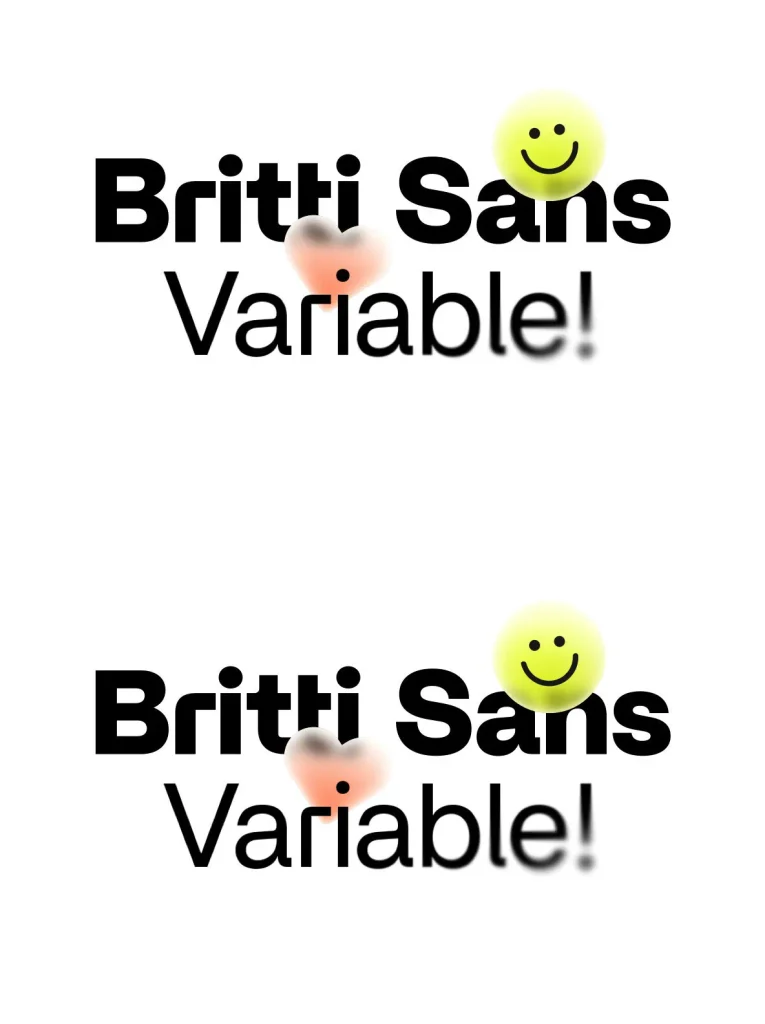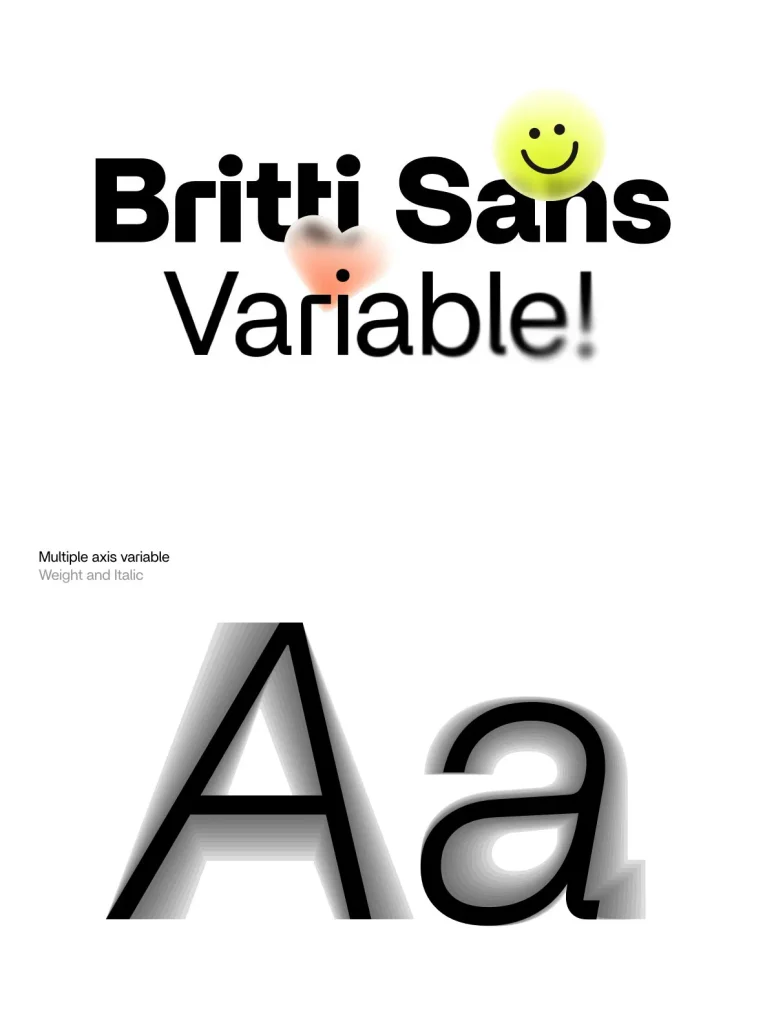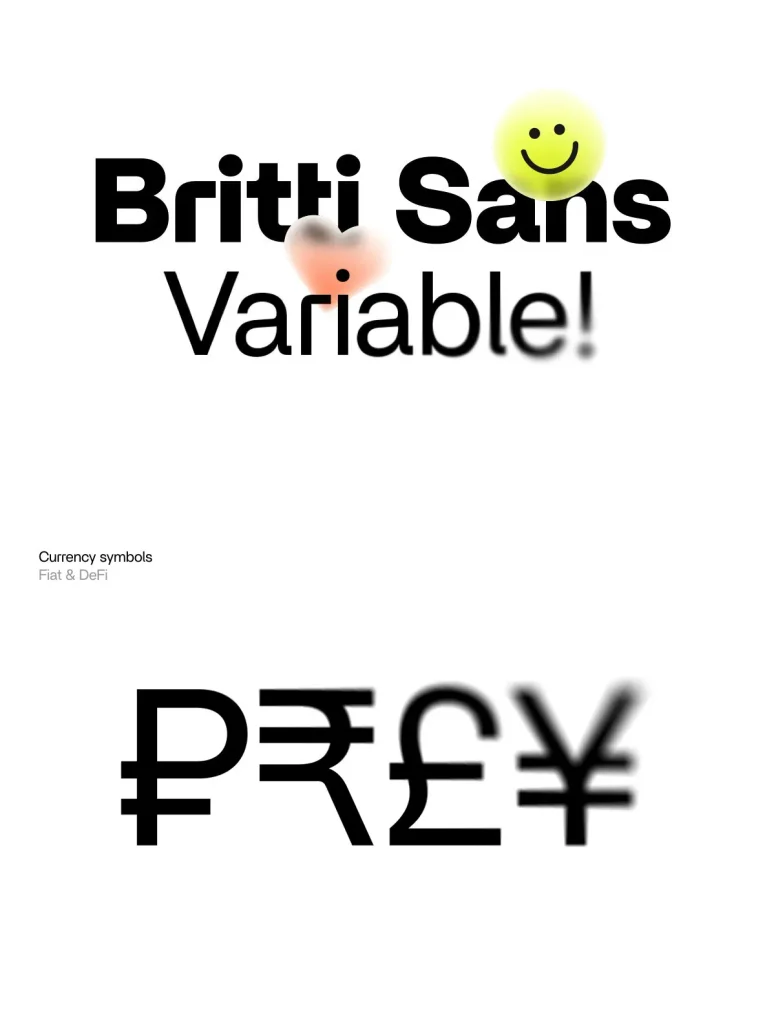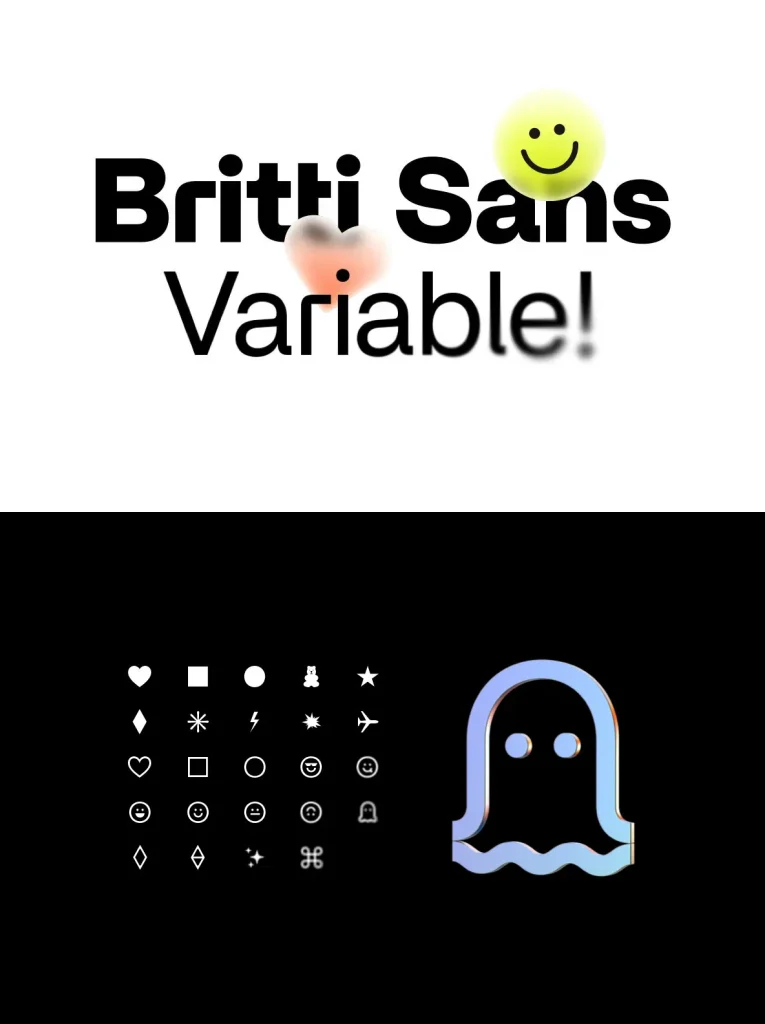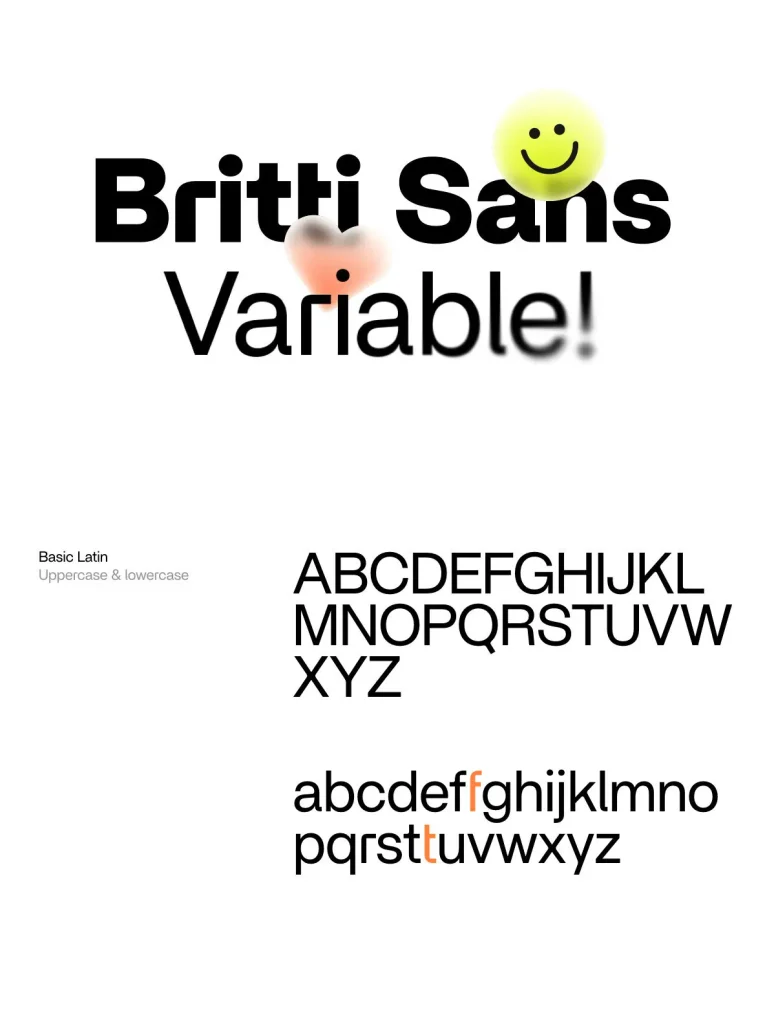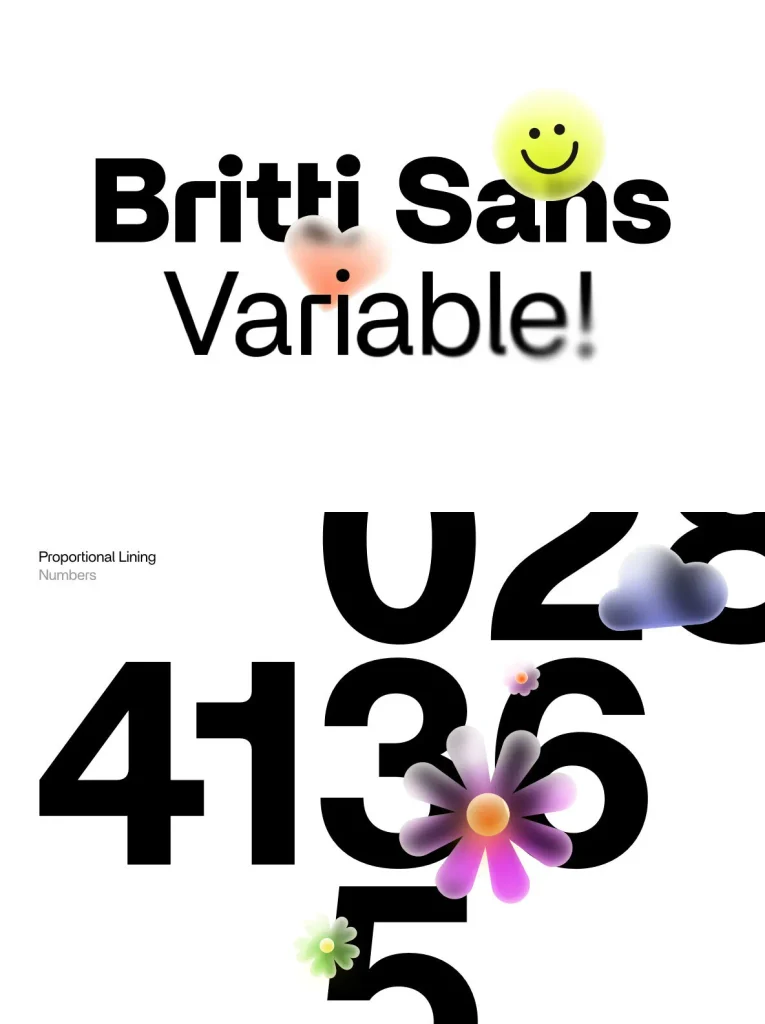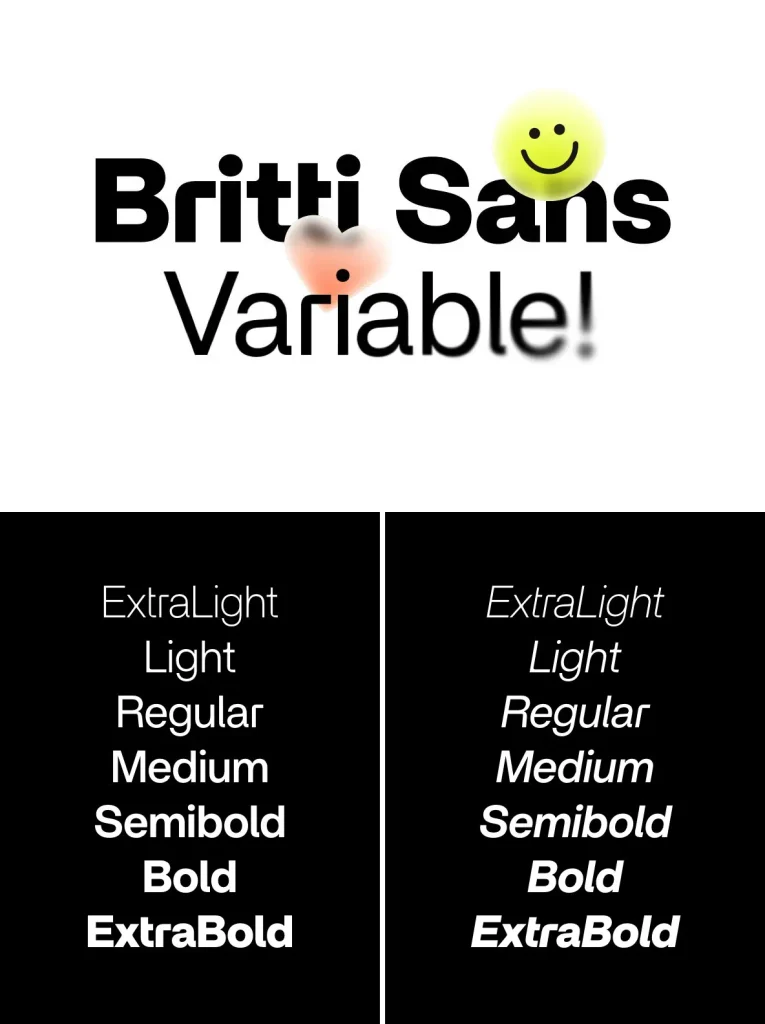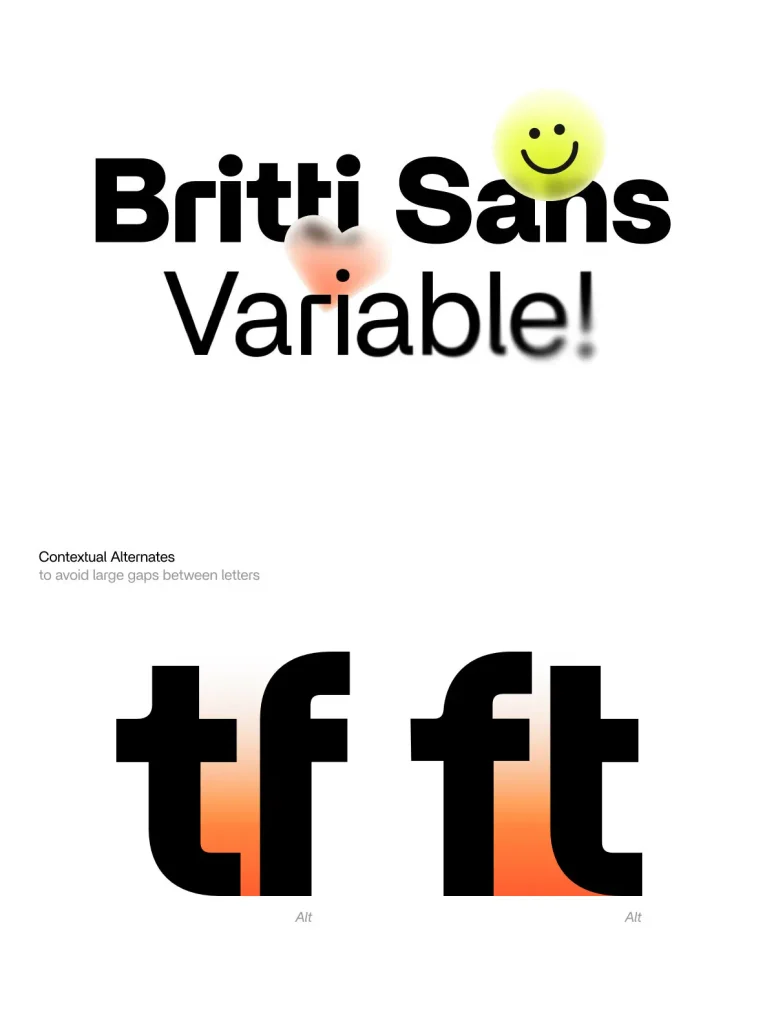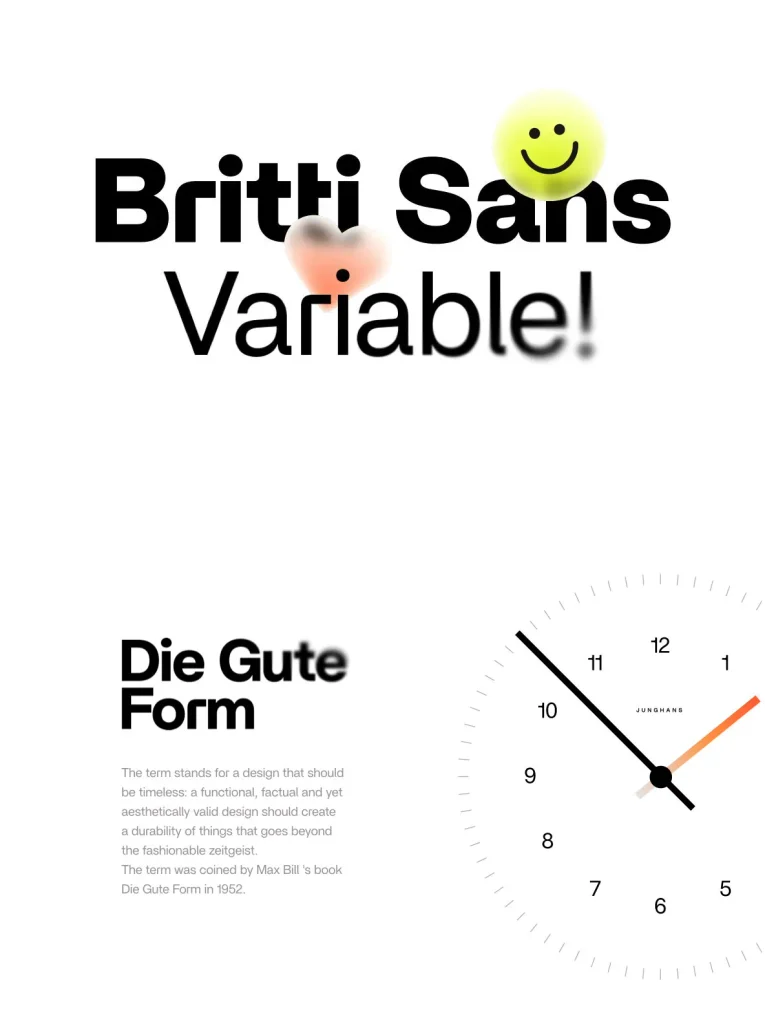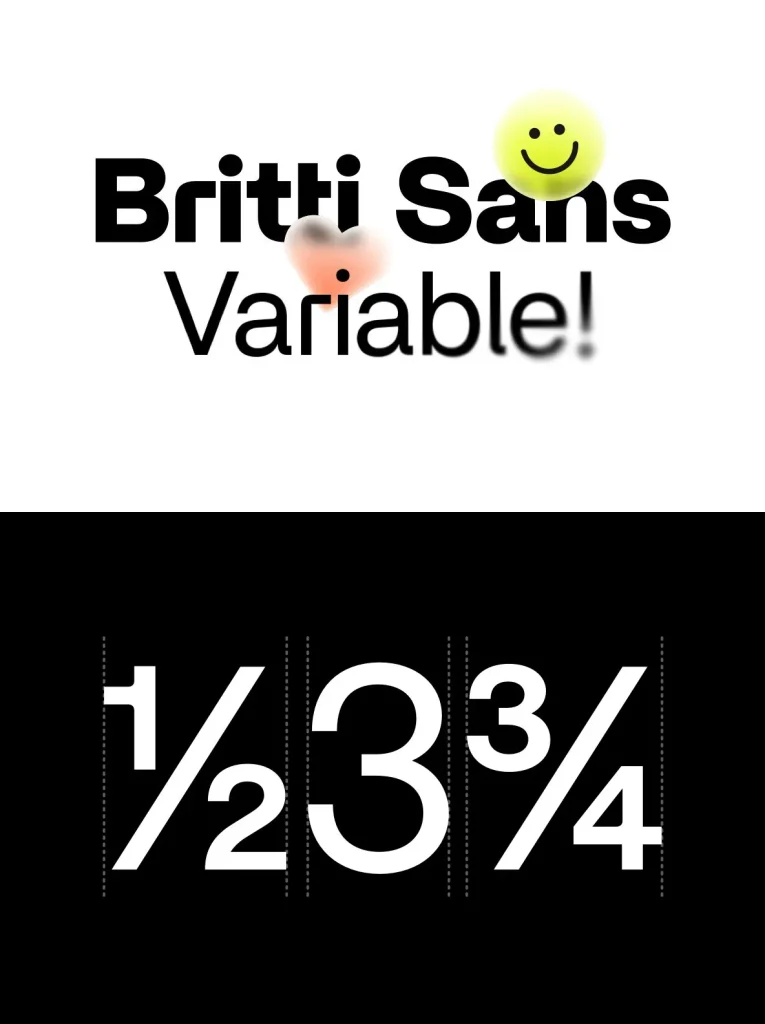
Britti Sans Font
Britti Sans: Modern Grotesque with Geometric Precision
Britti Sans is tailored for designers seeking a contemporary typeface that balances industrial heritage with geometric clarity. It achieves this through clean construction, subtle curves, and a focus on functional, legible forms—a reflection of classic industrial design values. This modern grotesque delivers versatility, supporting diverse projects from editorial layouts to identity systems.
The design incorporates a thoughtful selection of OpenType features, expanding creative options and usability across different languages and technical demands. Whether for user interfaces or print, Britti Sans offers clarity at every size.
Features:
Contextual alternates for nuanced text flow
Uppercase and lowercase localized Sharp S
Numerators, denominators, and fractions
A full suite of currency symbols, including Bitcoin
Emojis and icons to complement digital communication
Proportional and tabular figures for data-driven design
Circled numbers for organized layouts
Seven weights with italics, plus a two-axis variable version